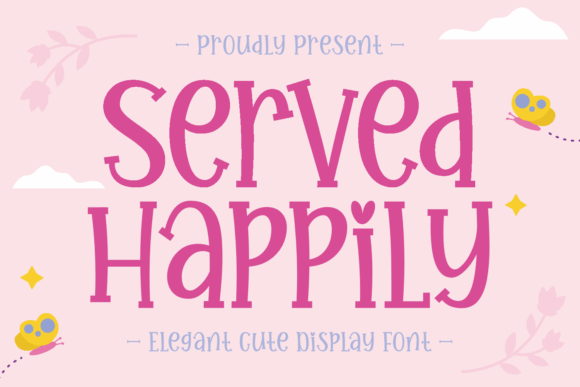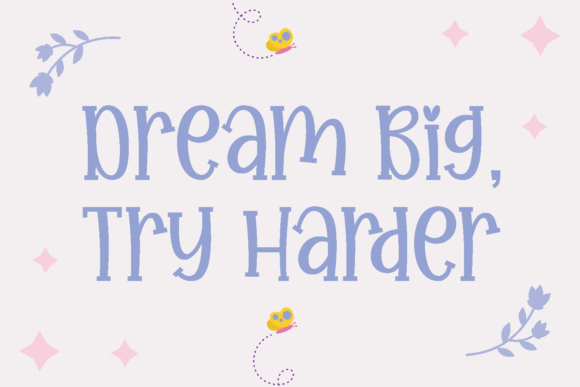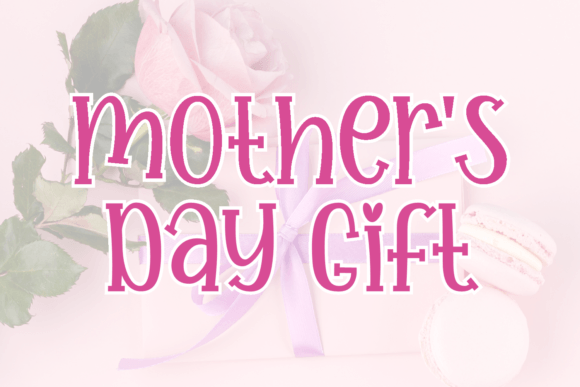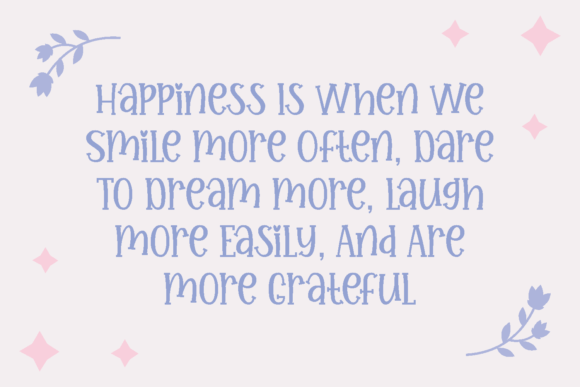
Served Happily Font: A Playful & Cute Display Font for Cricut & Crafts
About the Served Happily Font
The Served Happily Font offers a perfect balance of form and function for your design needs. Step into the charming world of creativity with our unique and modern font, notable for its playful and whimsical hand-sketched style. Embrace the joy of the holiday season from Christmas to New Year with the heartwarming touch of our font, aptly designed to bask in the happiness and love of these cherished moments. Whether it’s a delightful logo, an enchanting craft, or a dynamic business design, infuse a dose of fun with our distinguished font that perfectly captures the spirit of children’s delight and wonder. With buoyant and bouncy serifs, it’s the perfect font to enhance any t-shirt or poster design, making them pop with its unique blend of cuteness and contemporary flair. Enjoy the world of design with our distinct and playful serif font, exuding a captivating charm that breathes life into your creative endeavors.